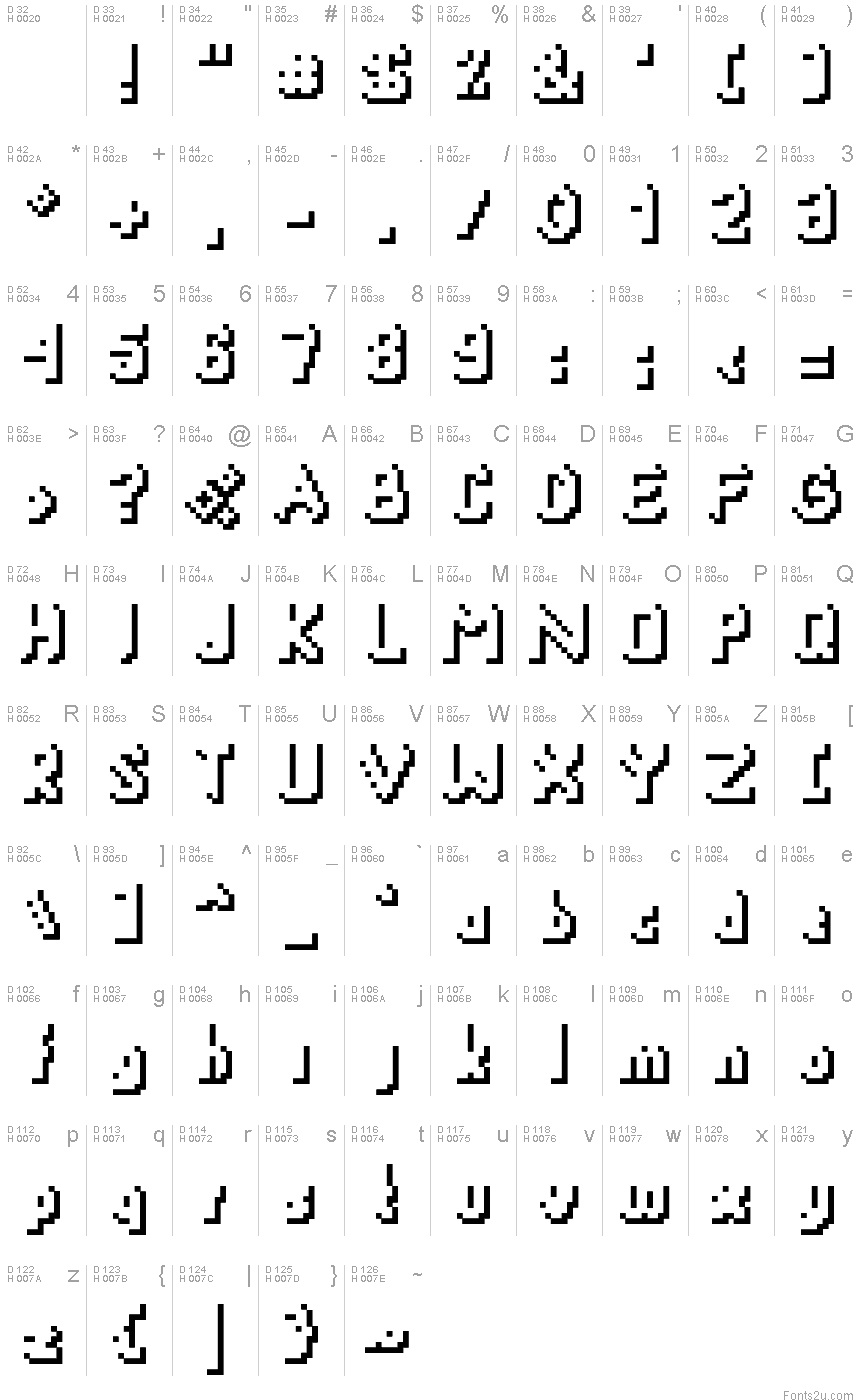
SmackyFormulaSha
A font specifically made for use in Adventure Game Studios. Best viewed at 11 pixel size. Alias, shadow, and outline fonts are to be layered over the base font.